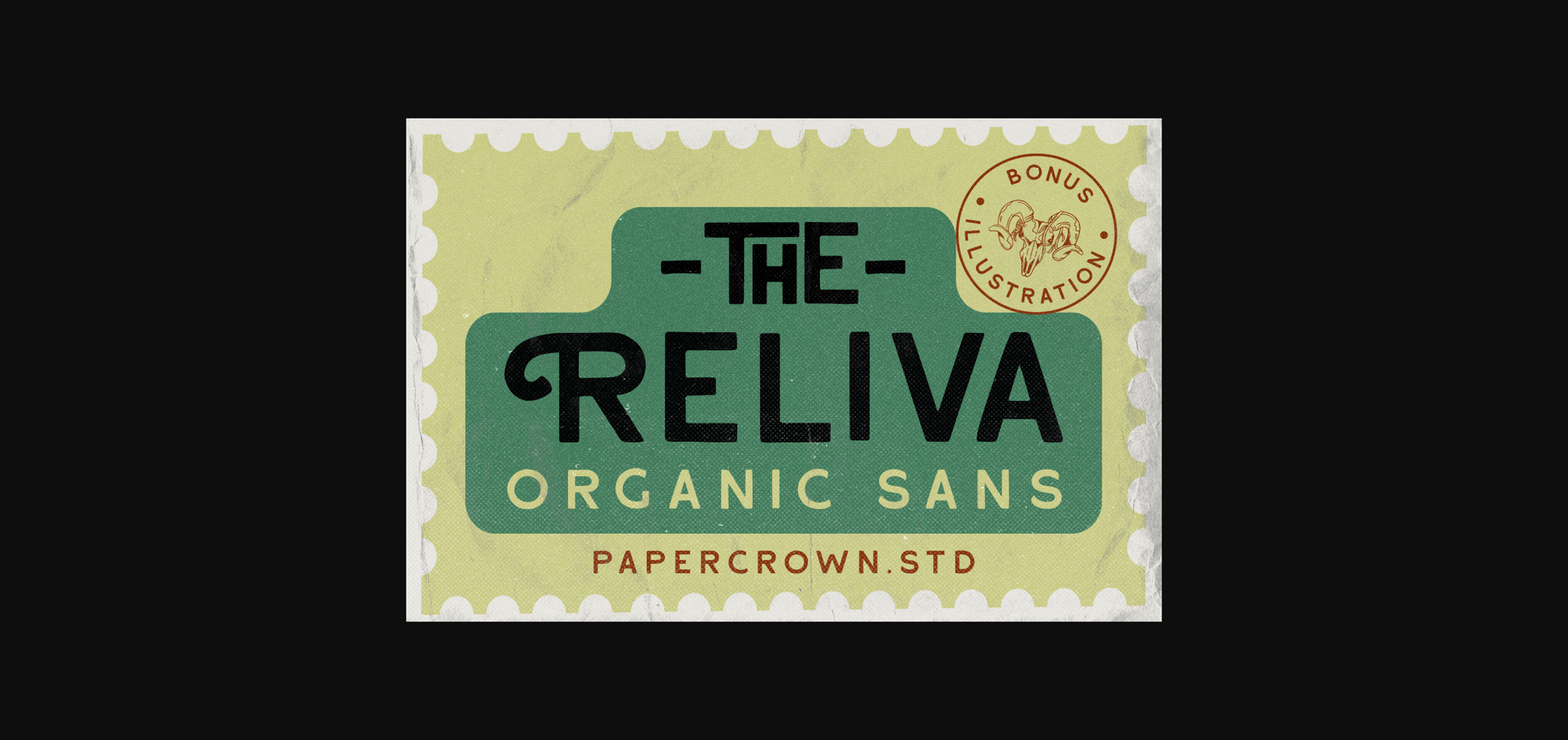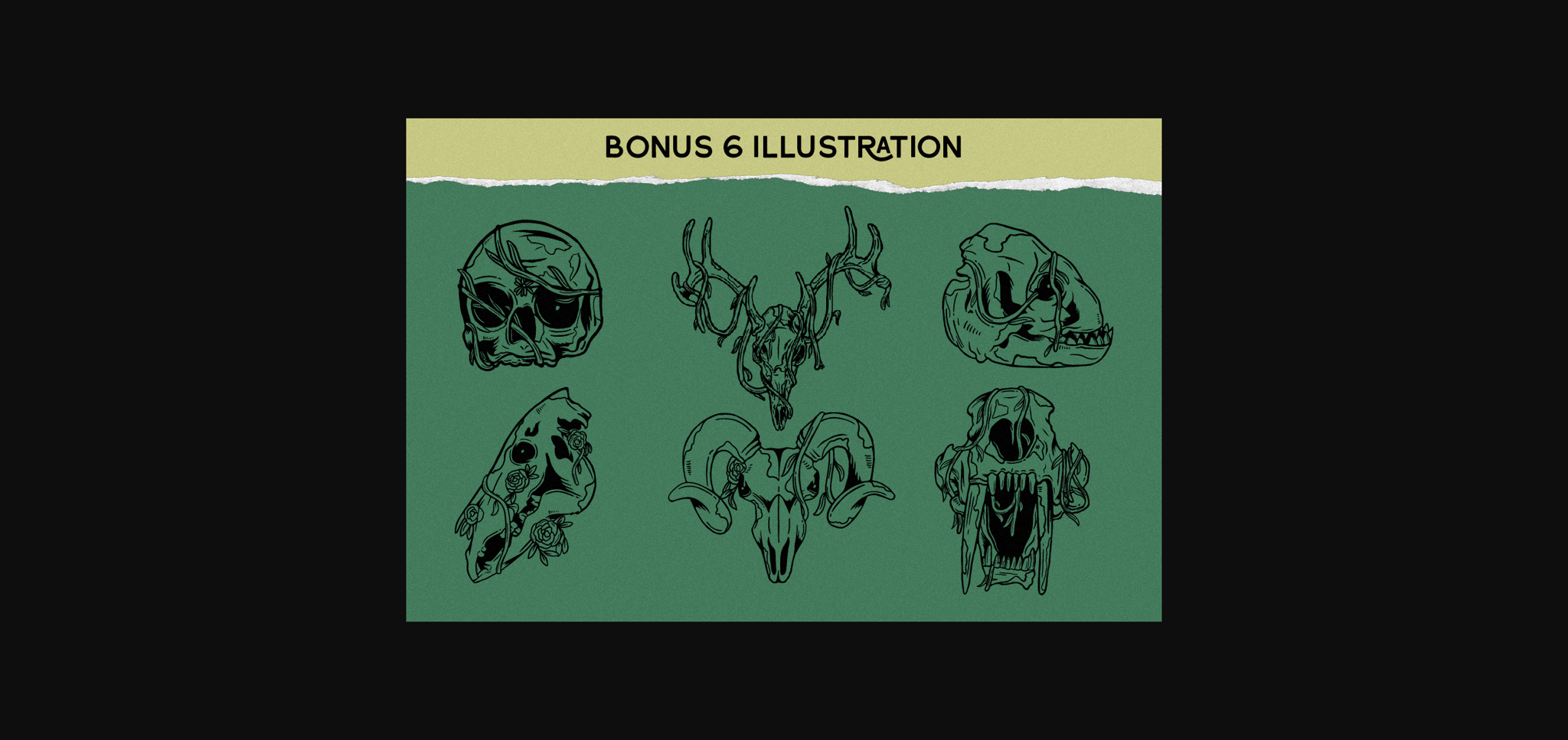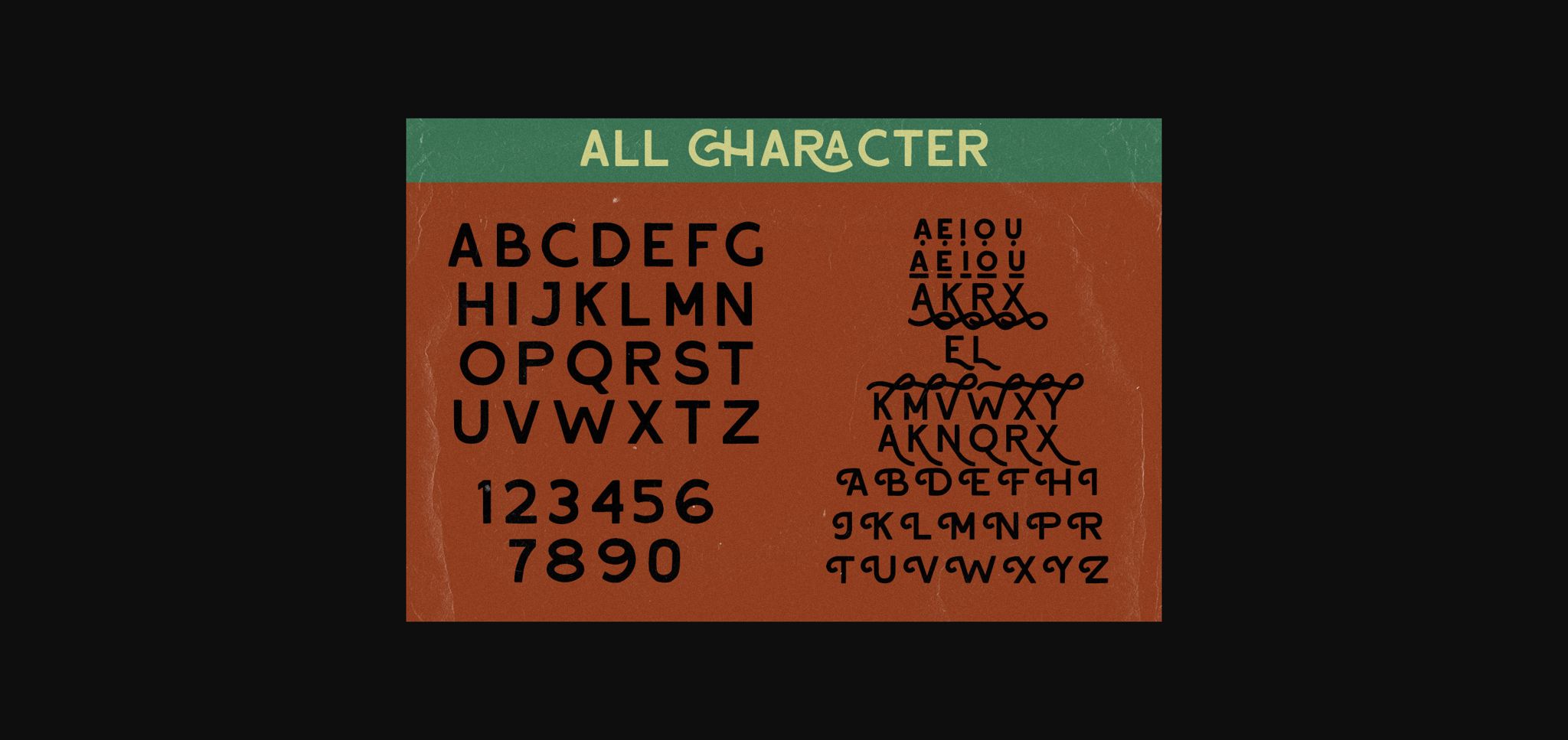
About Reliva Font
Reliva features a wide range of alternates and ligatures that make this organic sans serif font incredibly unique. On top of it, you can also make use of the 6 bonus illustrations included in the download!